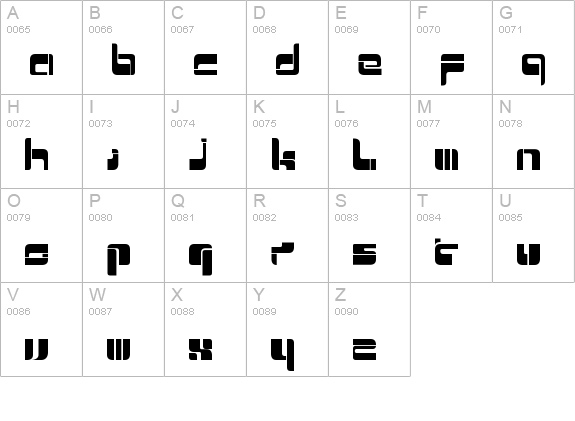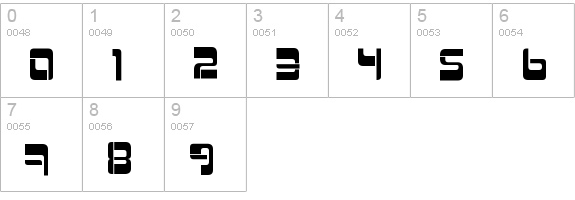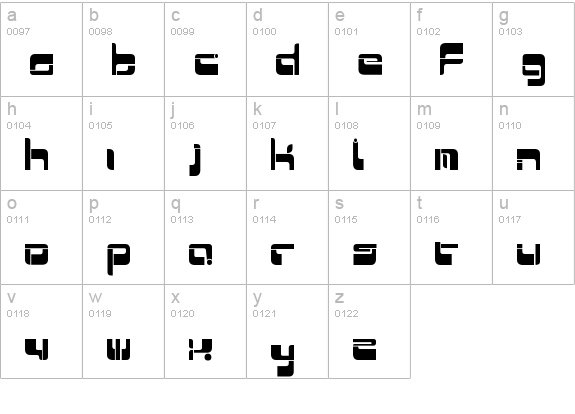
Mr Quicke Font Details
Mr Quicke font is a charming and versatile typeface that is perfect for a wide range of design projects. Its elegant and modern style makes it a great choice for logos, branding, posters, and more. With a unique blend of classic and contemporary elements, Mr Quicke font is sure to make your designs stand out. The best part? Mr Quicke font is available for free download at FontsMarket.com. This means you can easily access this stylish font and use it in your projects without any cost. Don't miss out on the opportunity to add a touch of sophistication to your designs with Mr Quicke font, available for free now!